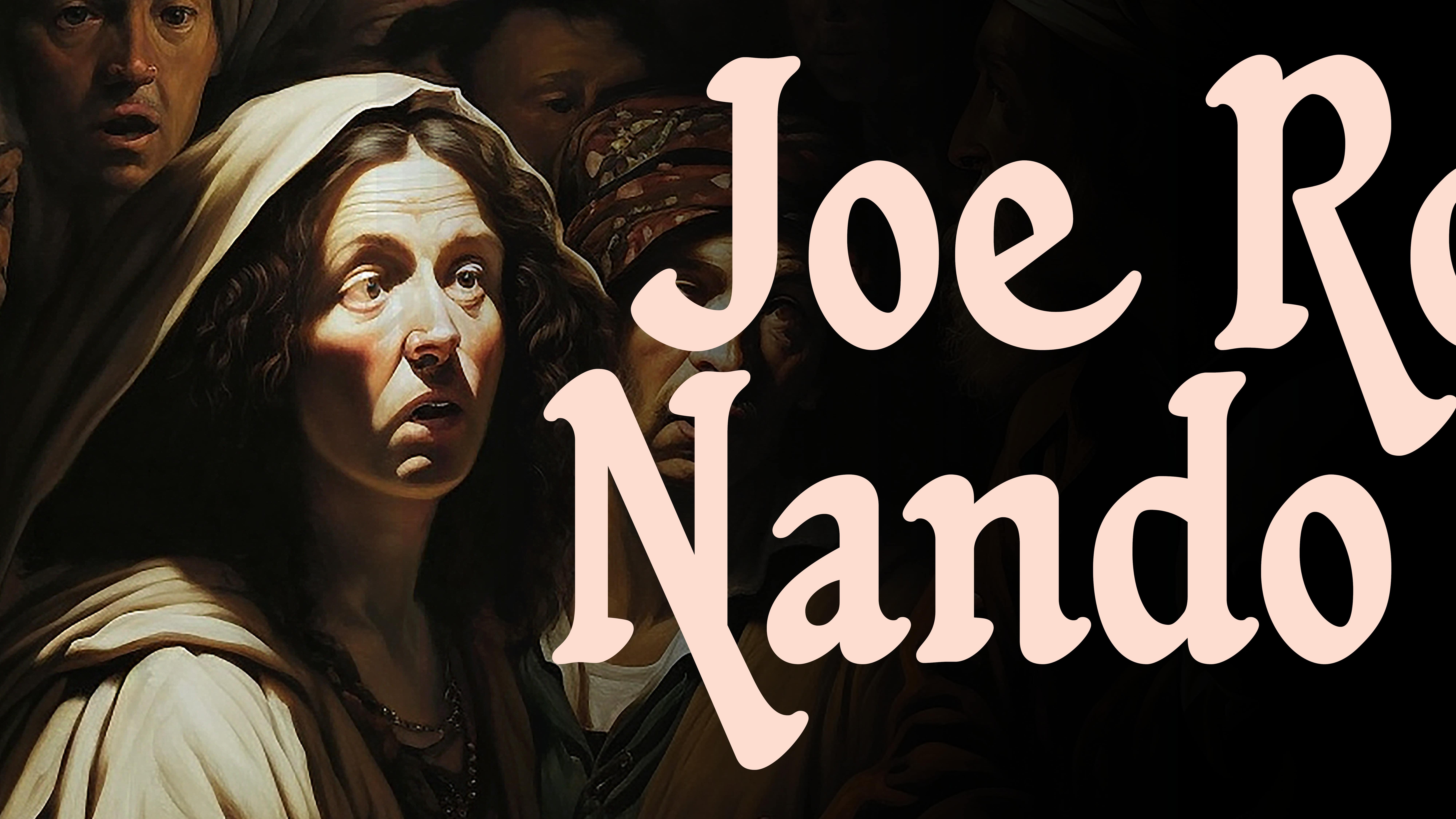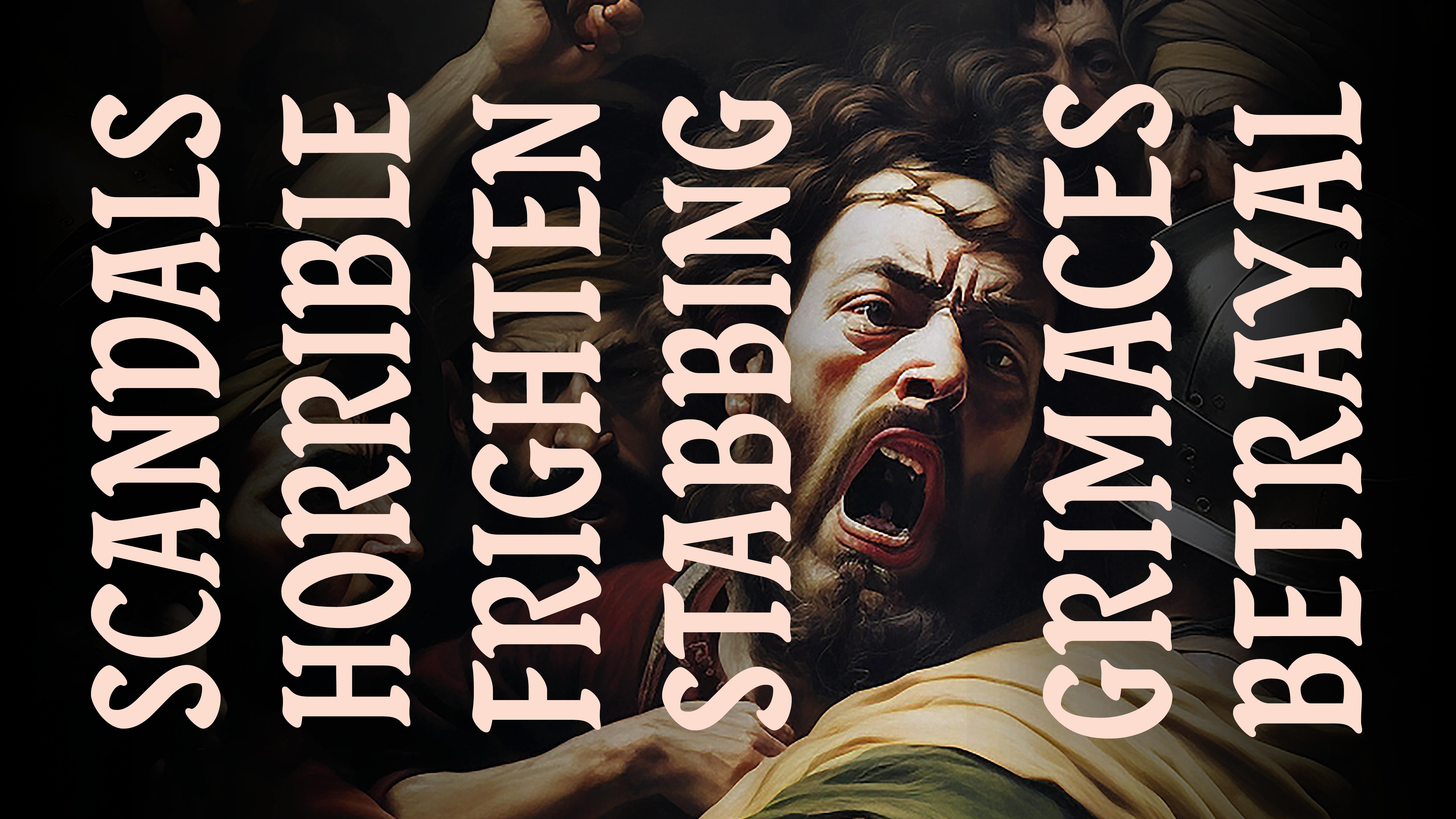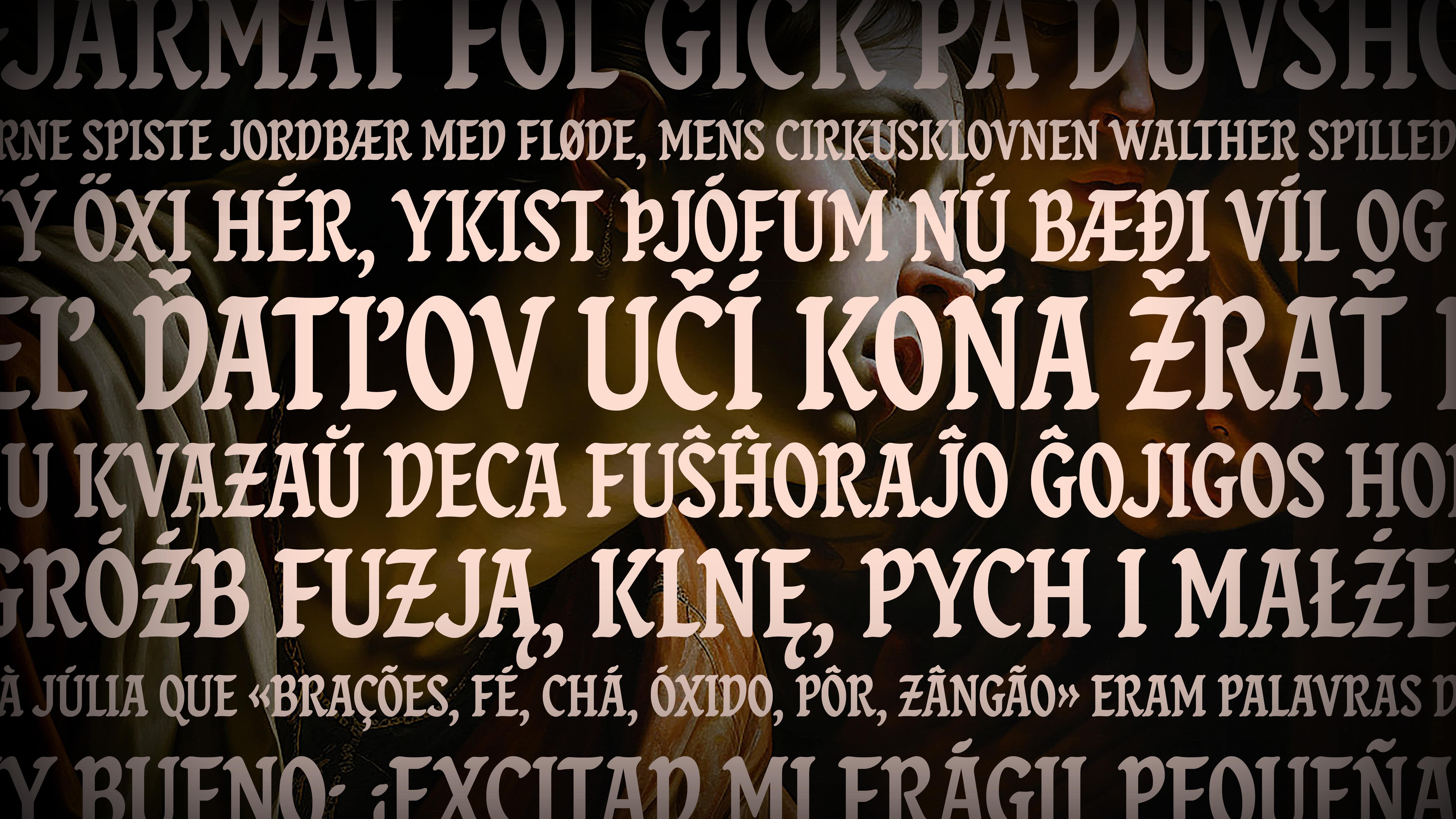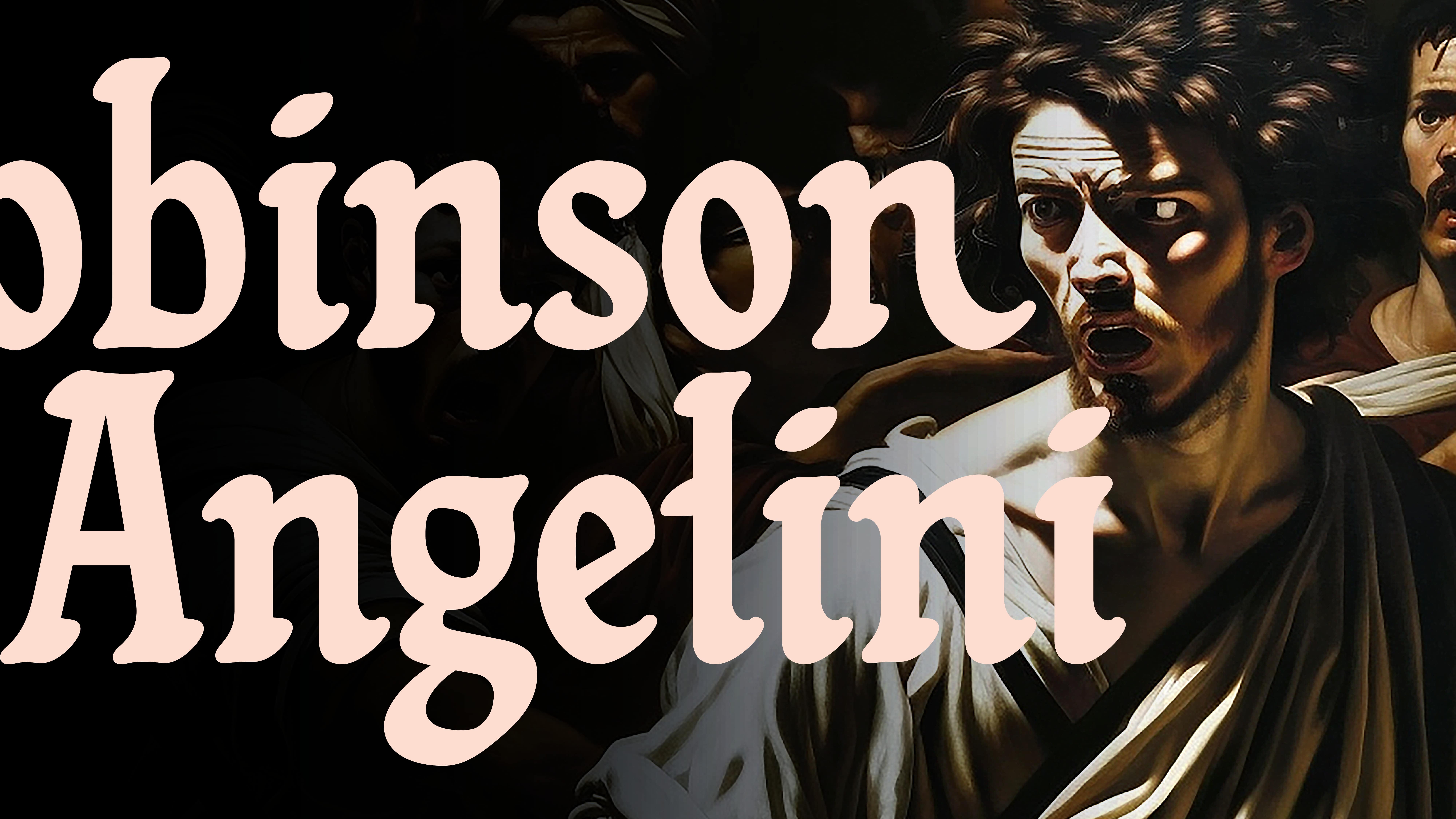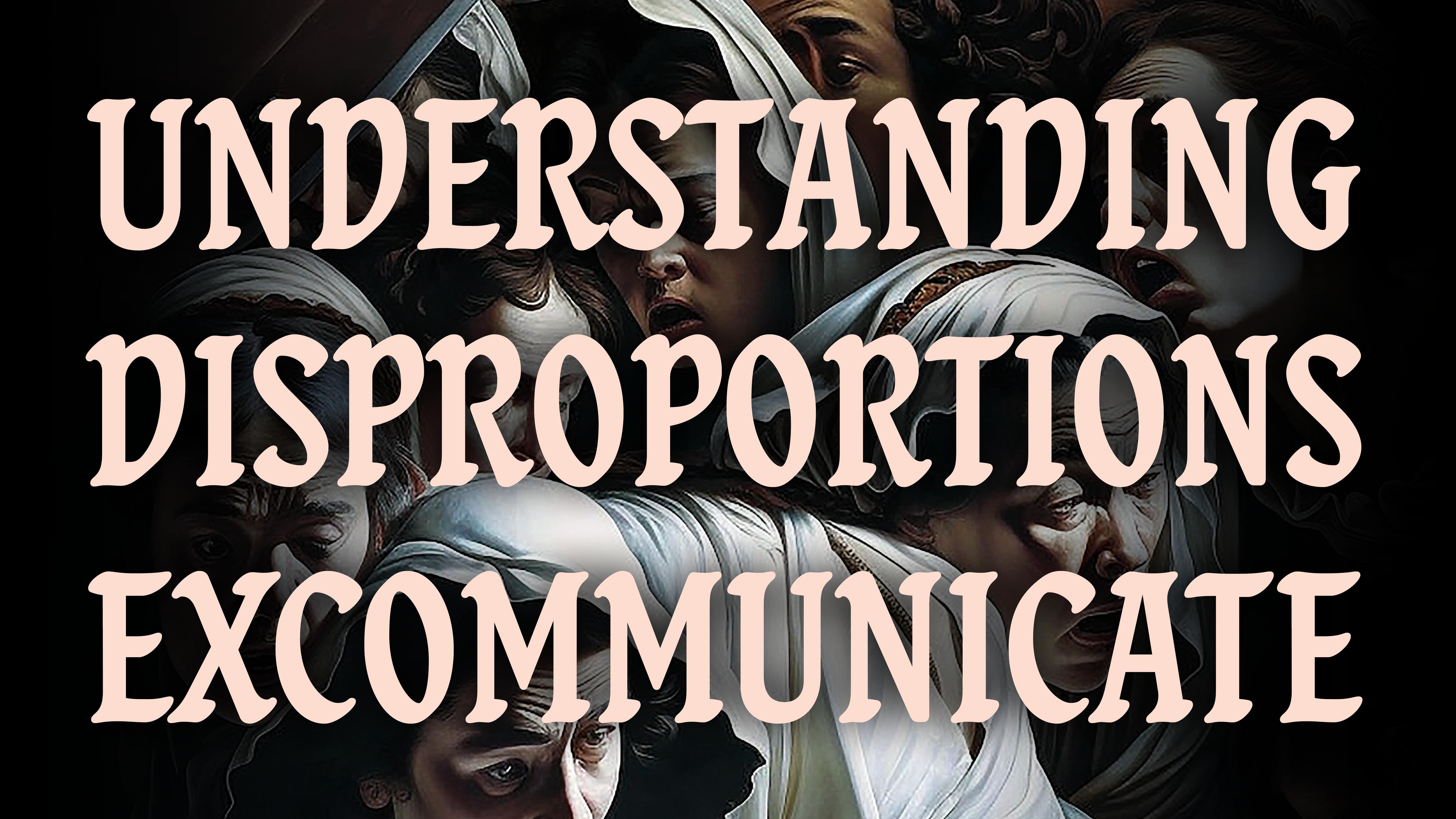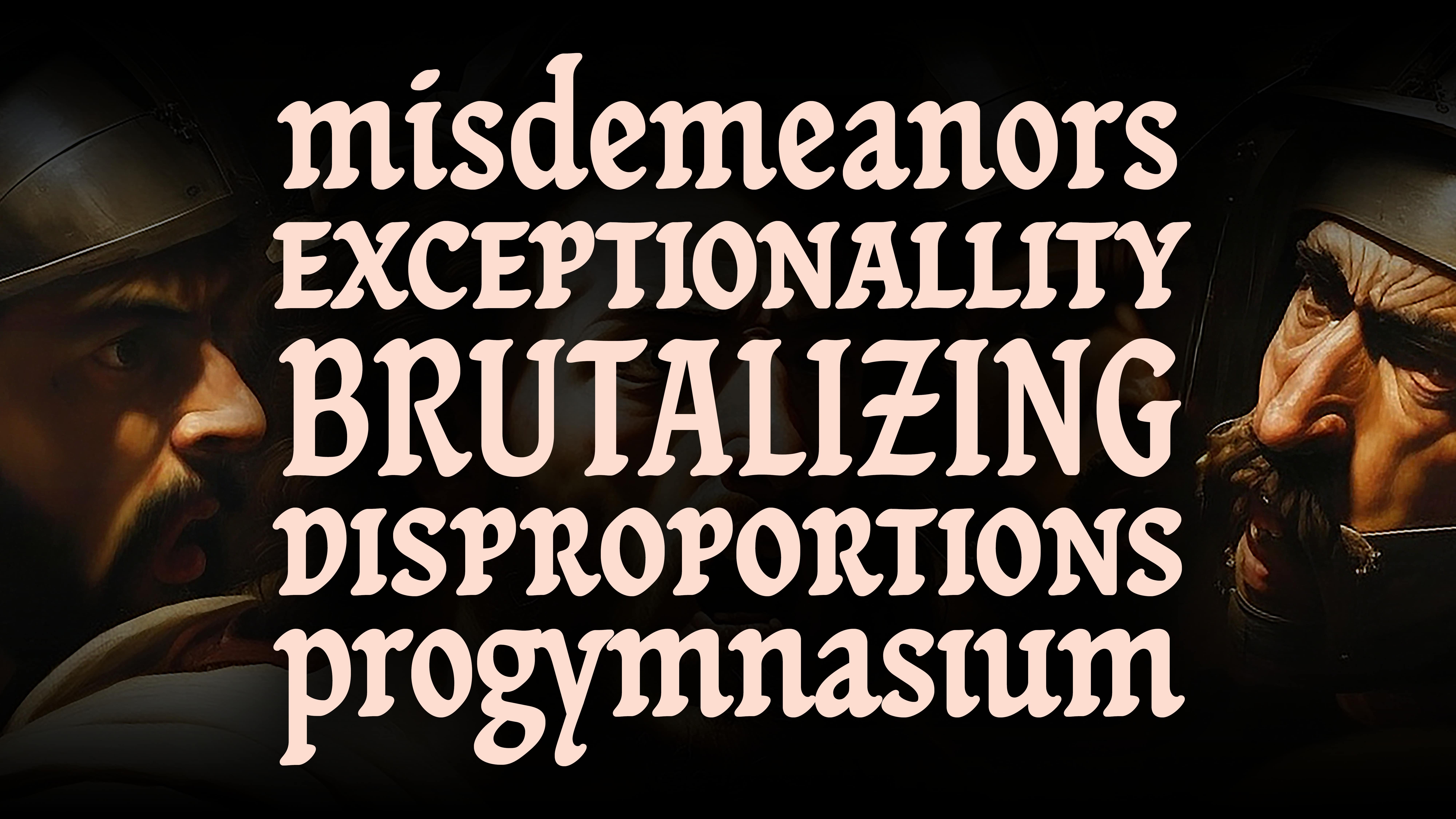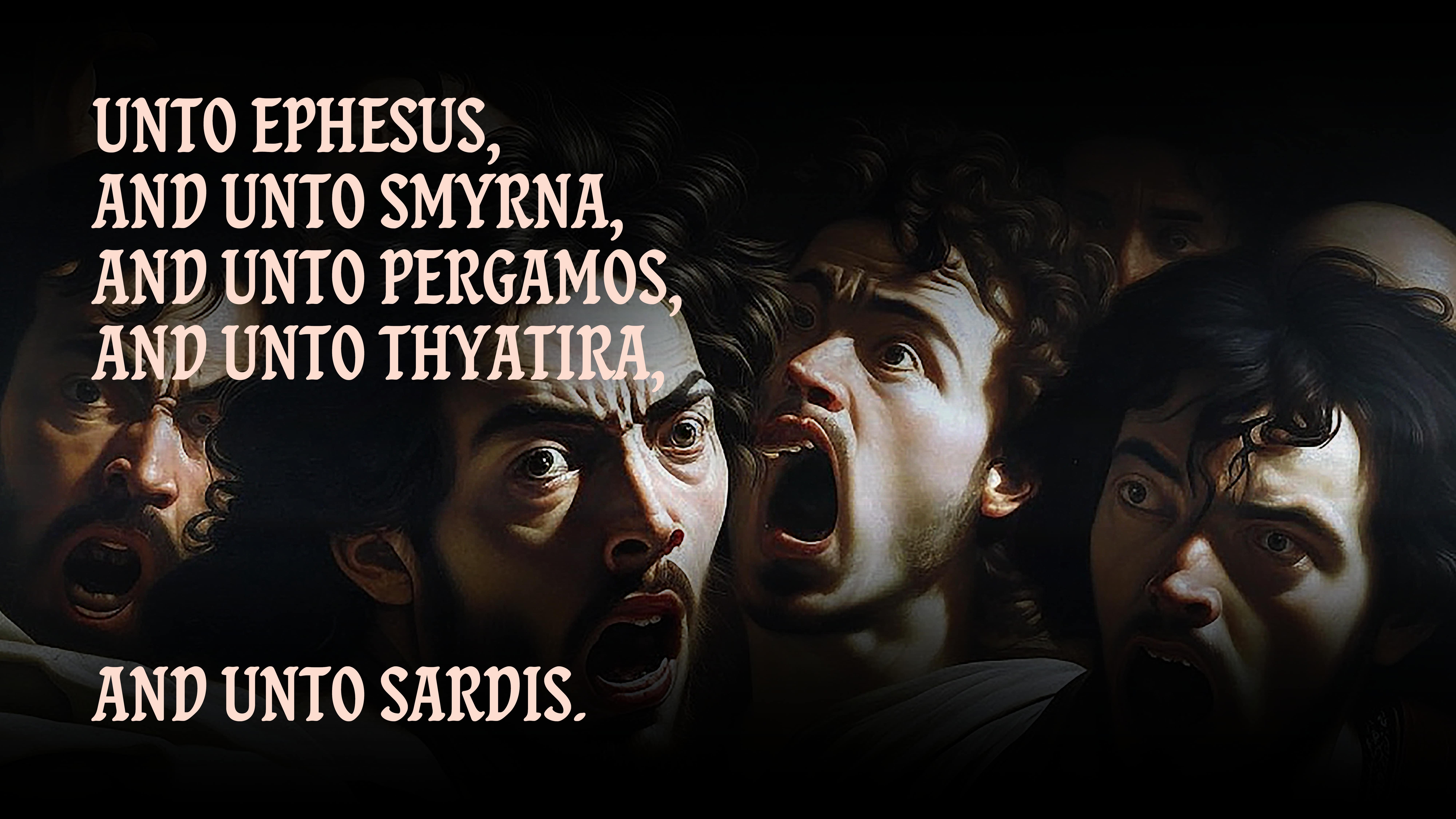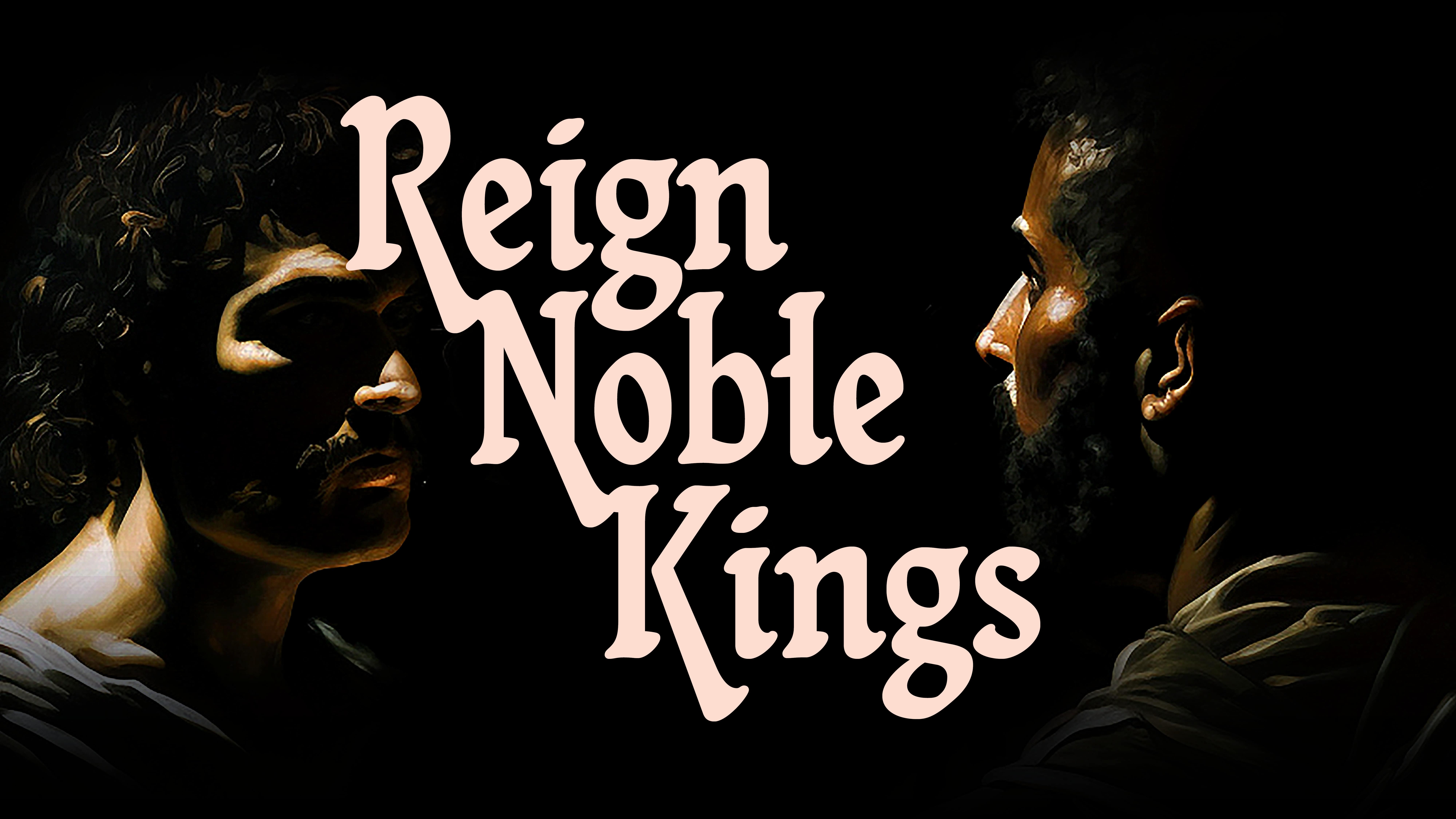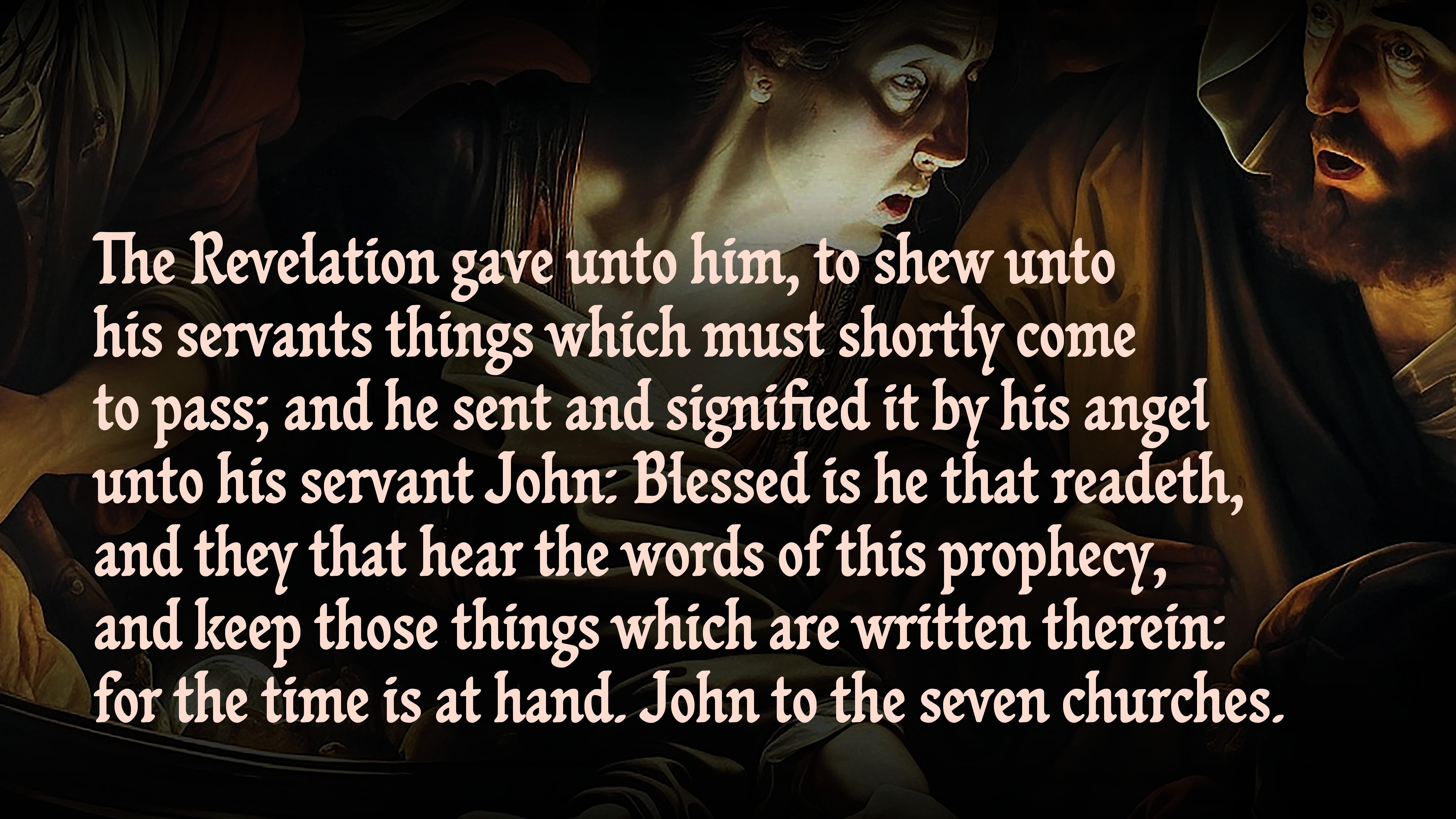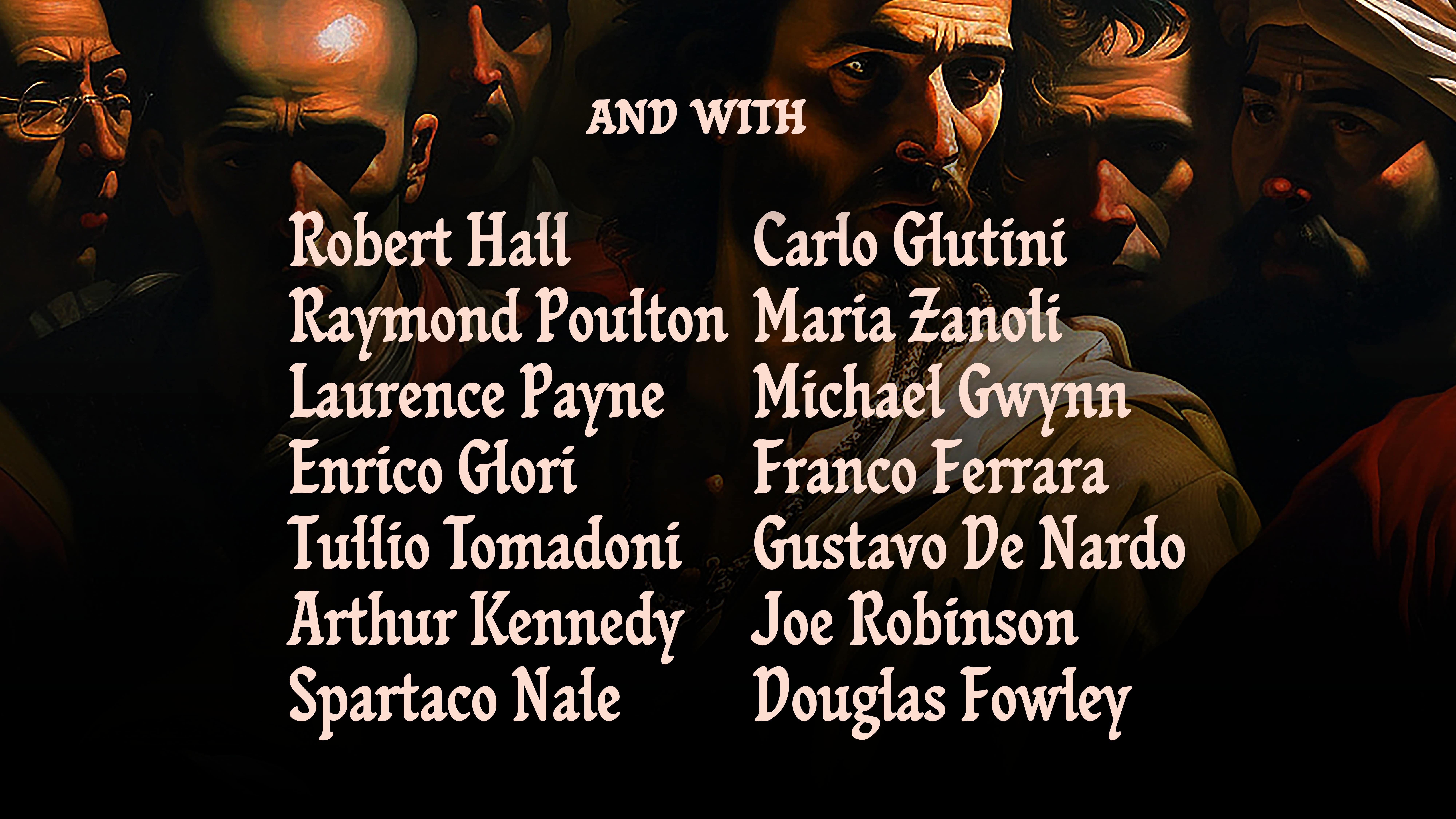
Barabbas
Barabbas Font is a font inspired by the hand-designed generic and screen titles of Barabbas Font, an italo-american movie produced by Richard Fleischer in 1961. A religious epic of grand proportions, 'Barabbas' is a 1961 film directed by the talented Richard Fleischer. Starring Anthony Quinn as the titular character, the film delves into the story of Barabbas as depicted in the Christian Passion narrative found in the Gospel of Mark and other gospels. With an all-star cast including Silvana Mangano, Katy Jurado, Arthur Kennedy, Harry Andrews, Ernest Borgnine, Vittorio Gassman, and Jack Palance, this film, distributed by Columbia Pictures, is based on Nobel Prize-winning Pär Lagerkvist's 1950 novel of the same name. A Swedish film adaptation of the novel was released in 1953.
Filmed in the stunning locations of Verona and Rome under the supervision of producer Dino De Laurentiis, 'Barabbas' includes many spectacular scenes, such as a thrilling battle of gladiators in a Cinecittà film studio arena set and a heart-wrenching depiction of the crucifixion during an actual total solar eclipse. This film was truly conceived as a grand Roman epic, and it does not disappoint.
Now, Barabbas Font as a font family draws its inspiration directly from the hand-designed master pieces found in the very early stages of the film but it tends to be a more contemporary approach. The design system of the font found through logic curve design, weight proportion and distribution and so on, make this font an amazing design tool to be working with.
With its referential hand-designed letterform, Barabbas will do wonders when used as a display font for movie posters, book covers, web design headlines.